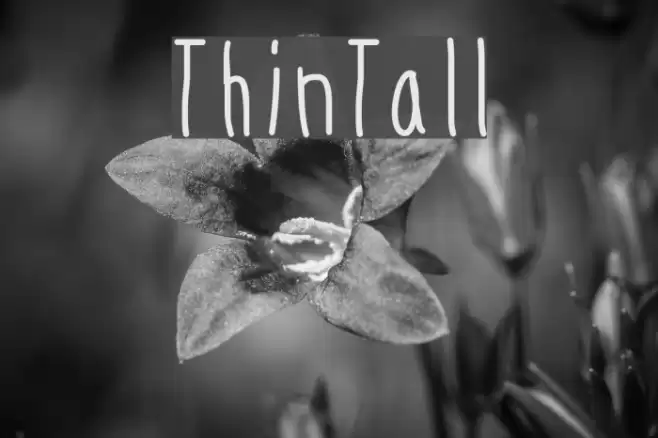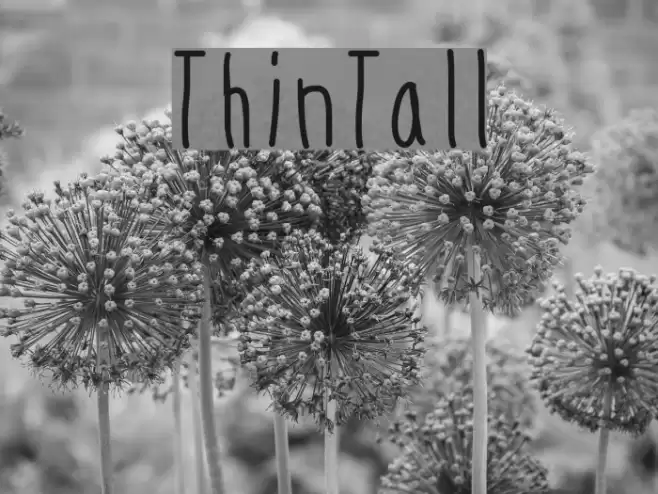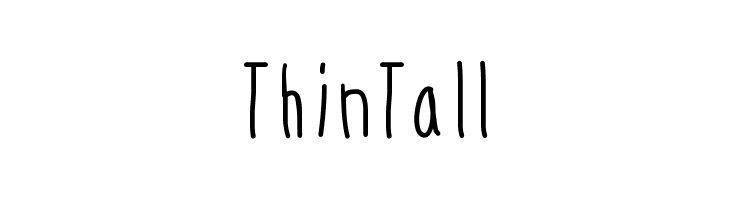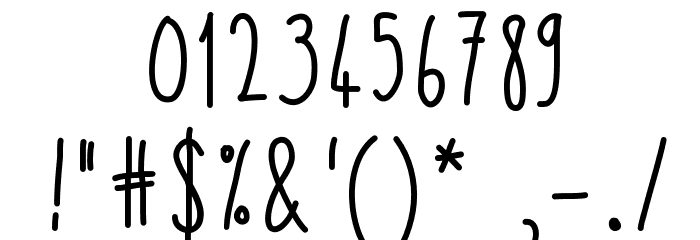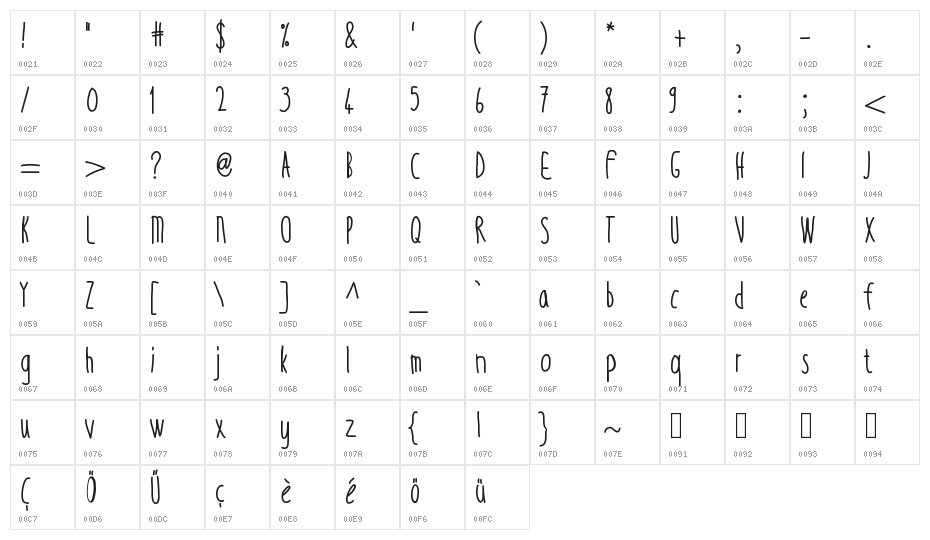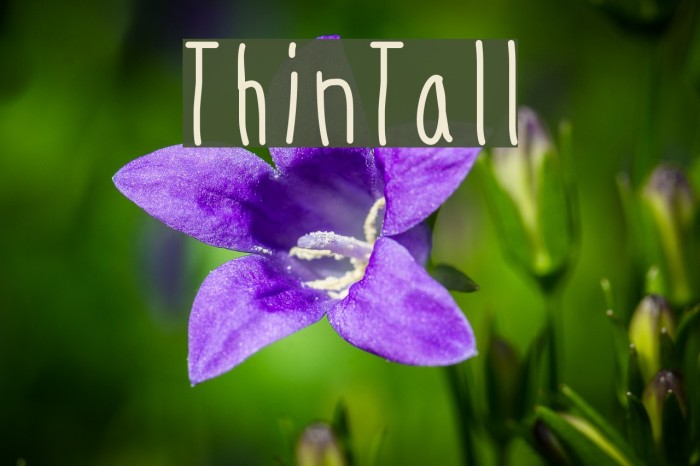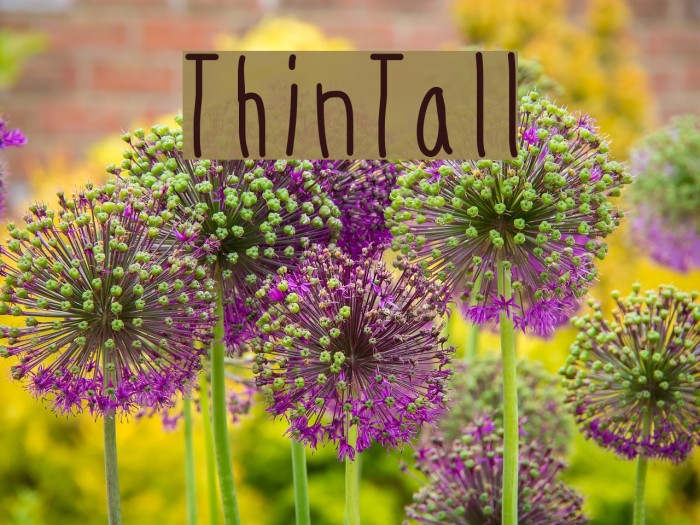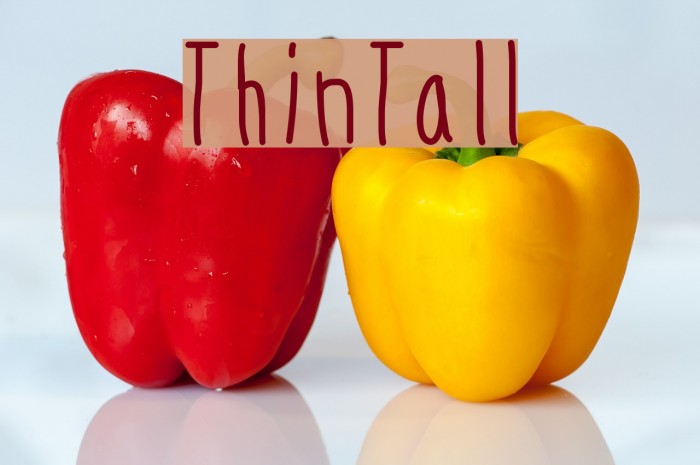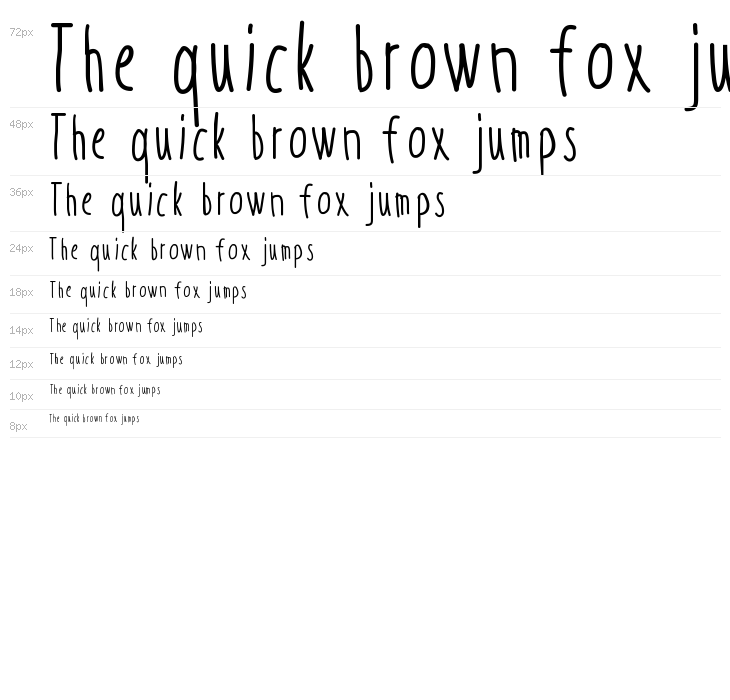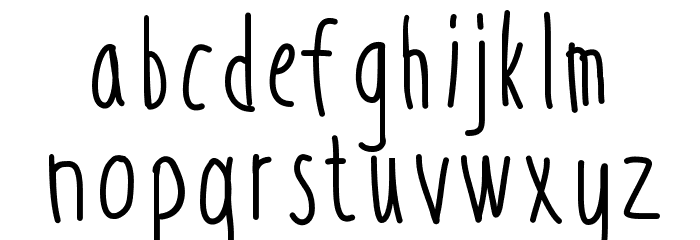
ThinTall Font
ThinTall Description
This font features a unique, elongated design with tall, narrow characters that give it a distinctive and playful appearance. The strokes are consistent in width, contributing to a clean and modern look. The uppercase and lowercase letters maintain a uniform height, enhancing readability while adding a quirky charm. The numerals and special characters follow the same slender style, ensuring a cohesive visual experience. This font's whimsical yet structured form makes it suitable for creative and informal applications.
A tall, narrow font with a playful and modern design from Handwritten fonts.